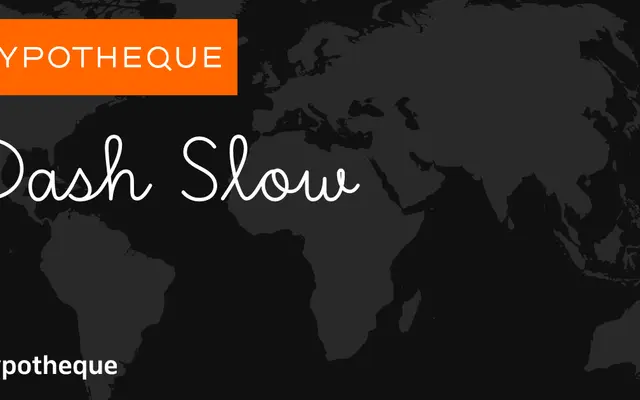
Dash Slow specimen from Typotheque
One member of the Dash System, a geometric sans family in which four stylistic subfamilies simulate varying drawing speeds across three widths and six weights.
Dash Slow is the measured, deliberate variant within Typotheque's Dash System, which pairs it with Dash Casual, Dash Fast and Dash Fastest to form a single family differentiated by apparent pen speed. Each subfamily runs across Semiwide, Standard and Wide widths at six weights from Hairline to Bold, yielding 18 styles per subfamily. The system also includes Dash Casual Variable, offering continuous interpolation across the full design space.
Dash Slow is part of the Dash System, a geometric sans family with multiple stylistic subfamilies (Slow, Casual, Fast, Fastest) varying in pen speed, alongside width variants, placing it firmly in the geometric sans category.